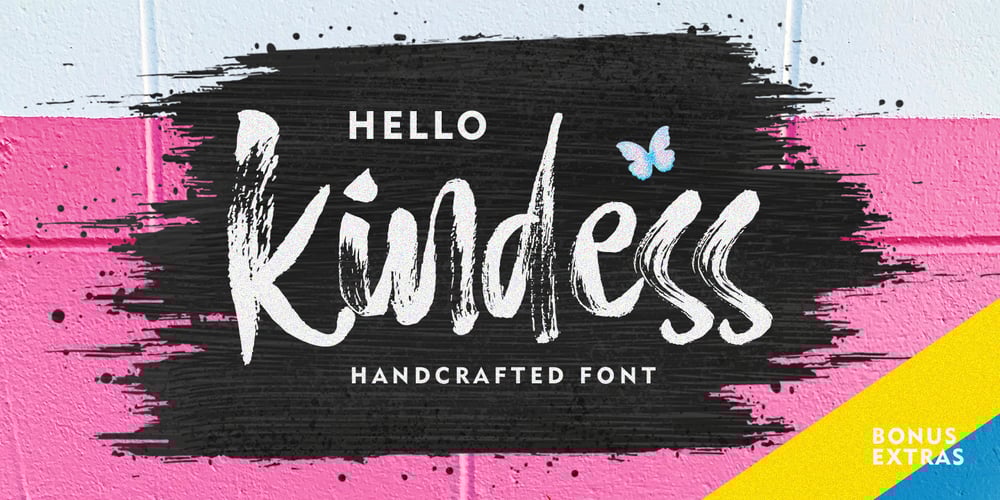
Hello Kindess Brush Font Family was designed by Muhammad Fajar and published by Lucky Type. Hello Kindess Brush contains 3 styles and family package options. Hi designer, let me introduce my newest font Hello Kindess. Hello Kindess is my newest font brush that I made using a simple brush with a modern style and irregular base line. contemporary approach to design, natural handmade, suitable for use in title designs such as clothing, invitations, book titles, stationery designs, quotes, branding, logos, greeting cards, T-shirts, packaging designs, posters, and more.Hello kindess Font consists of 2 kinds of styles namely upright and italic style so that designers are free to choose the desired style.Hello Kindess Font Also has 20 Extras made by hand which are very suitable for various purposes in design. Extras that I made with full detail so it looks very unique.Thank you for seeing I hope you like it.